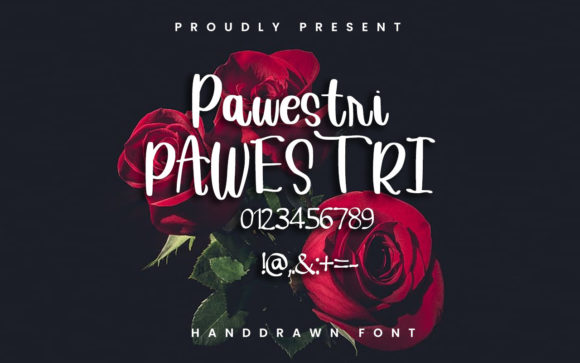
Introducing Pawestri, the remarkable and innovative script font that will transform your Tech Logo into an undeniable masterpiece! Step into a world of captivating designs, where creativity knows no bounds.
Crafted with meticulous attention to detail, Pawestri embodies elegance, charm, and playfulness. Its strokes dance with grace, evoking a sense of movement and energy that will captivate your audience. Join the ranks of leading-edge designers and witness the magic of Pawestri unfold.
### Unleash Your Creativity
Pawestri is a versatile wonder, a font that effortlessly adapts to a multitude of design concepts. From sleek and modern tech logos to whimsical and playful branding, it possesses the uncanny ability to elevate any creation to new heights.
Imagine the possibilities: a tech logo that exudes sophistication and innovation, a branding identity that radiates warmth and approachability, or social media posts that burst with personality. Pawestri is your creative compass, guiding you toward design excellence.
### Experience the Pawestri Advantage
By choosing Pawestri, you unlock a world of benefits that will redefine your design experience:
* Unparalleled Clarity: Every letterform in Pawestri is meticulously crafted for optimal clarity, ensuring your message shines through.
### Embark on a Creative Journey
With Pawestri at your fingertips, you embark on a creative adventure where possibilities are boundless. Let your imagination soar as you explore dynamic layouts, vibrant color palettes, and captivating compositions. Pawestri is your trusty companion, enhancing your designs with its undeniable charm.
Step into the spotlight, embrace your creativity, and witness the transformative power of Pawestri. Elevate your Tech Logo to new heights and captivate your audience with designs that resonate, inspire, and leave a lasting impression.